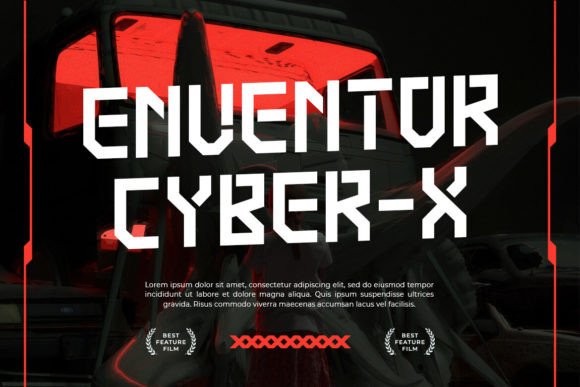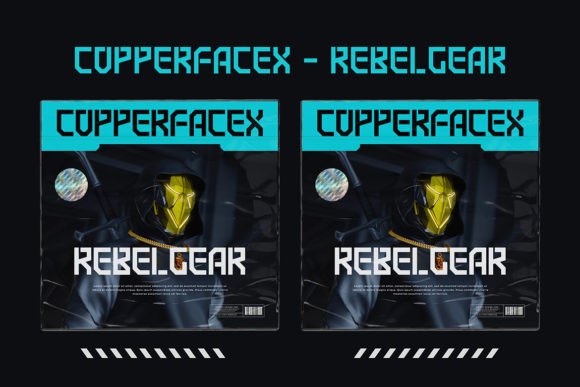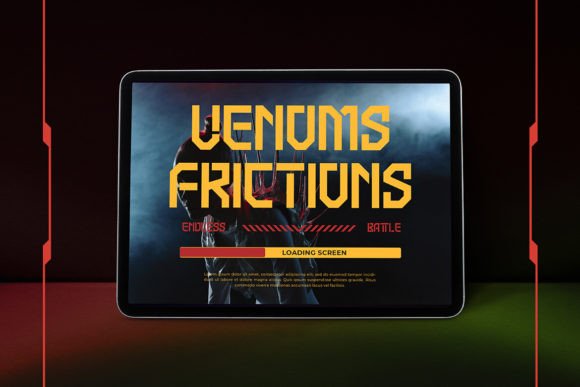
Introduction to Kraniven Font
Introducing “Kraniven” – a cyberpunk typeface that immerses your designs in the gritty, futuristic world of cyberpunk culture, offering a bold and dynamic typographic solution.
With its sharp angles and intricate details, “Kraniven” captures the essence of cyberpunk aesthetics, evoking the neon-lit streets and high-tech dystopias of science fiction Whether you’re designing game interfaces, movie titles, tech blogs, or album covers, this font injects your projects with an unmistakable cyberpunk vibe.
Key Features of Kraniven Font
Why Choose Kraniven Font?